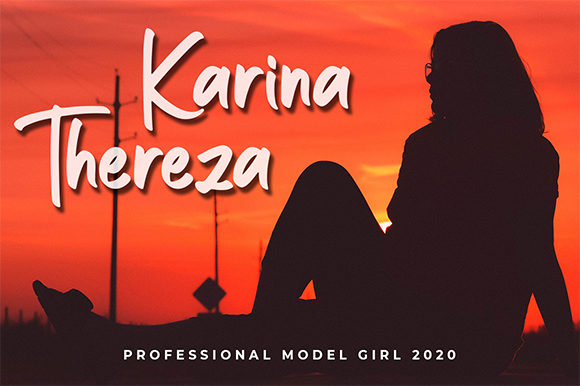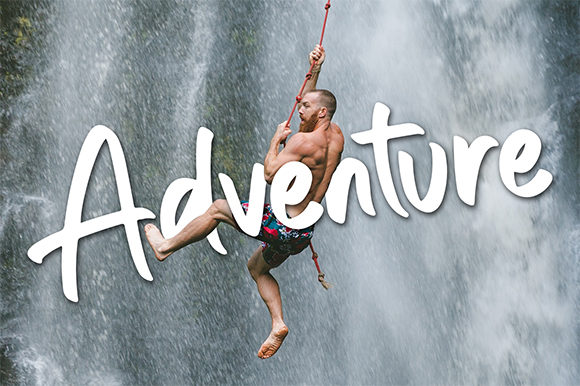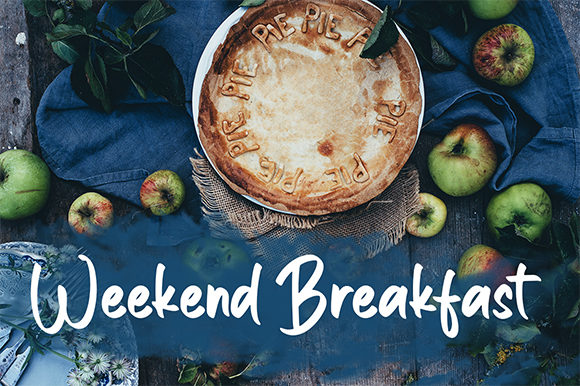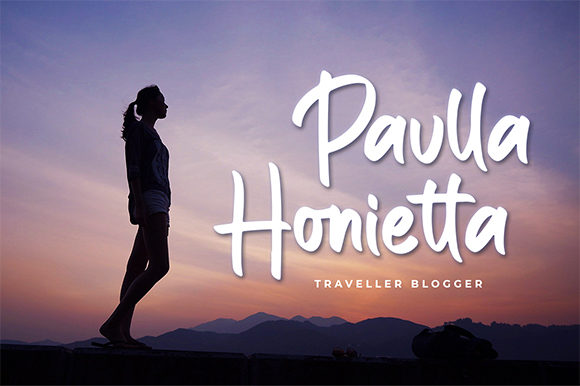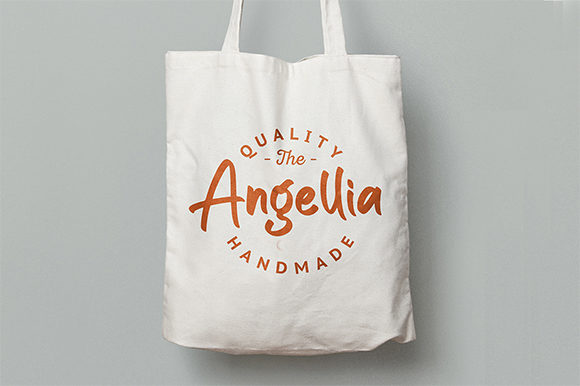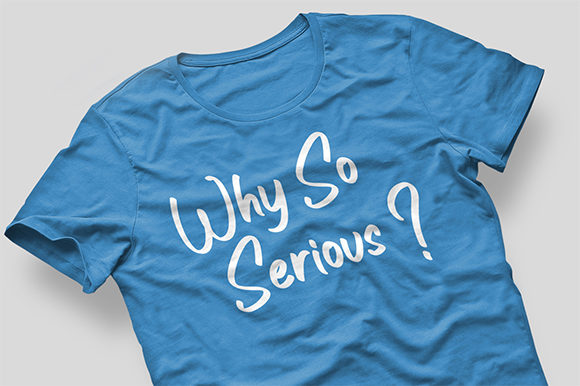
Introduction to Angellia Font
Have you ever been in a rush to finish a creative project, but the perfect font just didn’t seem to be there? That was my experience until I stumbled upon the beautiful Angellia Font. Its elegant and authentic feel instantly captured my attention, and I knew I had to learn more.
As a designer, I’ve come to appreciate the value of high-quality fonts that can elevate any project to the next level. The Angellia Font is one such treasure, offering a unique charm that’s perfect for adding a touch of sophistication to your designs.
With its transparent background and beautiful script style, the Angellia Font is a versatile design resource that’s waiting to be explored. And the best part? It’s available for free download, making it an excellent addition to any designer’s toolkit.
Key Features of Angellia Font
- High-quality design for creative projects with a transparent background, ideal for use in digital art and graphic design.
- Unique characteristics include elegant, cursive script and ornate details, perfect for adding a touch of sophistication to designs.
- Designed for use in a variety of creative projects, including invitations, greeting cards, and other paper crafts.
- Easy to customize and edit, making it a versatile design resource for both beginners and experienced designers.
Honest Review: Angellia Font
As a designer, I’m always on the lookout for high-quality design resources to enhance my creative projects. Recently, I had the chance to work with the Angellia Font, and I must say, it’s been a game-changer.
What works well: ✨ The Angellia Font is incredibly versatile, making it perfect for a wide range of creative projects, from elegant invitations to modern logos. Its high quality is evident in every detail, from the smooth lines to the precise typography. The font is also available for free download, which is a huge bonus for designers on a budget.
- Transparent background, allowing for seamless integration with any design element.
- High quality, making it perfect for print or digital applications.
Any limitations: ⚠️ While the Angellia Font is an excellent addition to any design toolkit, it may not be suitable for all projects. The font’s elegant and modern style may not be the best fit for more rustic or vintage-themed designs.
Overall impression: The Angellia Font is an excellent choice for designers looking for a high-quality, versatile font that can elevate their creative projects. Its free download and transparent background make it an excellent design resource that I highly recommend.
Tips for Getting the Most Out of Angellia Font
Use the Angellia Font in combination with other design resources, such as high-quality images or graphics, to create a visually appealing design. Experiment with different font sizes and styles to add depth and interest to your design. Consider using the Angellia Font in a free download or open-source design project to showcase your creative skills.
The Angellia Font is a versatile design resource that can be used in a variety of creative projects, including blog posts, social media graphics, and marketing materials. Its high-quality design and transparent background make it an ideal choice for designers who want to create visually appealing and professional-looking designs.
No, the Angellia Font does not have a transparent background. However, you can easily create a transparent background by using a design application that supports layering and masking, such as Adobe Photoshop or Illustrator.
Q: Is the Angellia Font suitable for high-quality creative projects?
Yes, the Angellia Font is designed to be a high-quality design resource, making it suitable for a wide range of creative projects, from branding and advertising to publishing and packaging. Its clear and legible characters ensure that your designs will be visually appealing and effective.